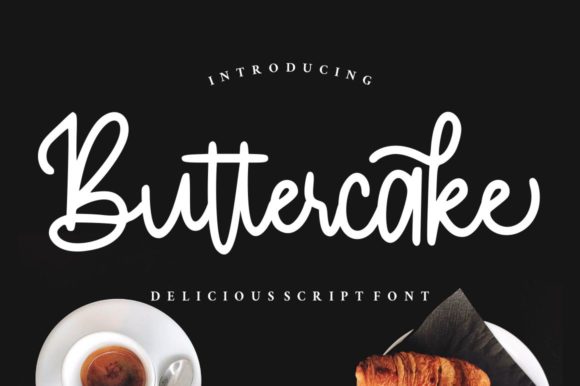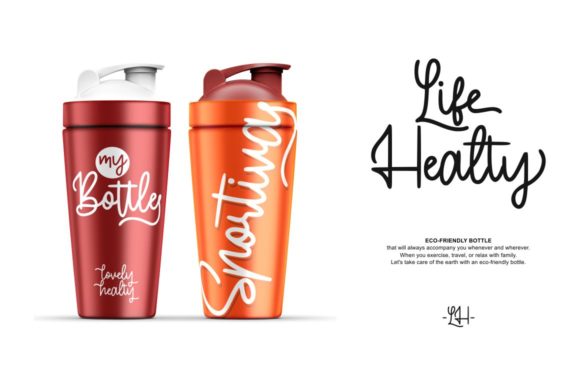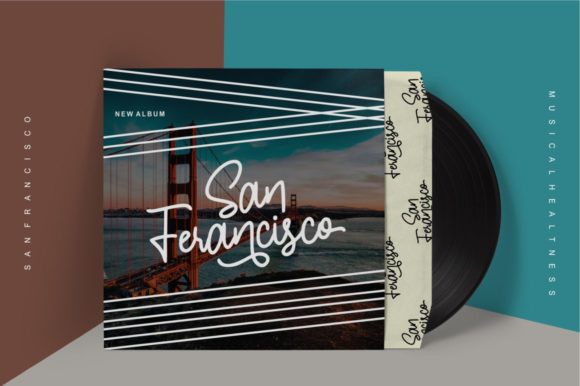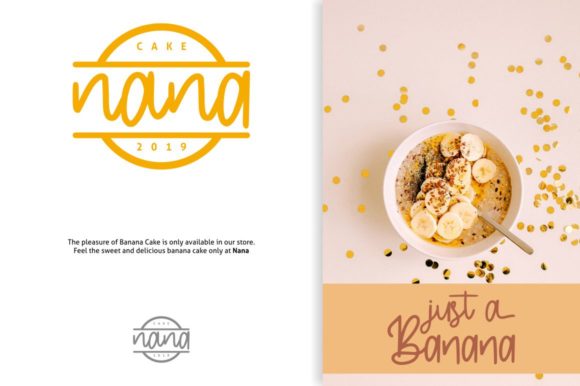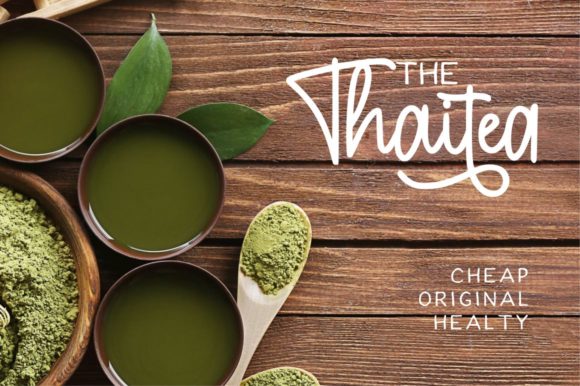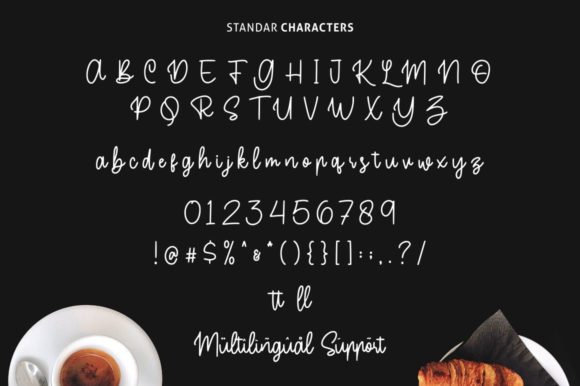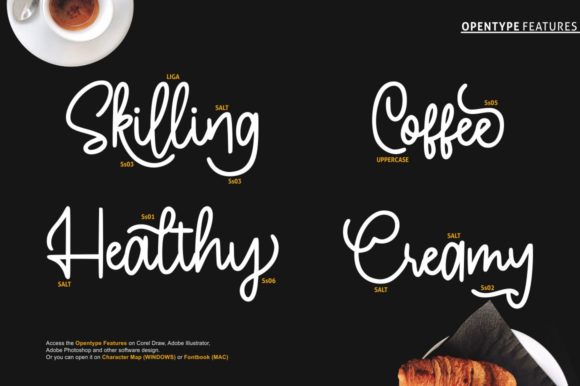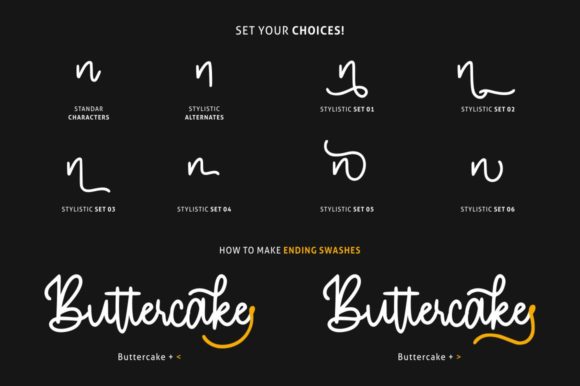
Buttercake Font
About Buttercake Font
Buttercake is a sweet, simple and delicious handwritten font with a cool feel. Use it to add an authentic and romantic feel to any crafting project.